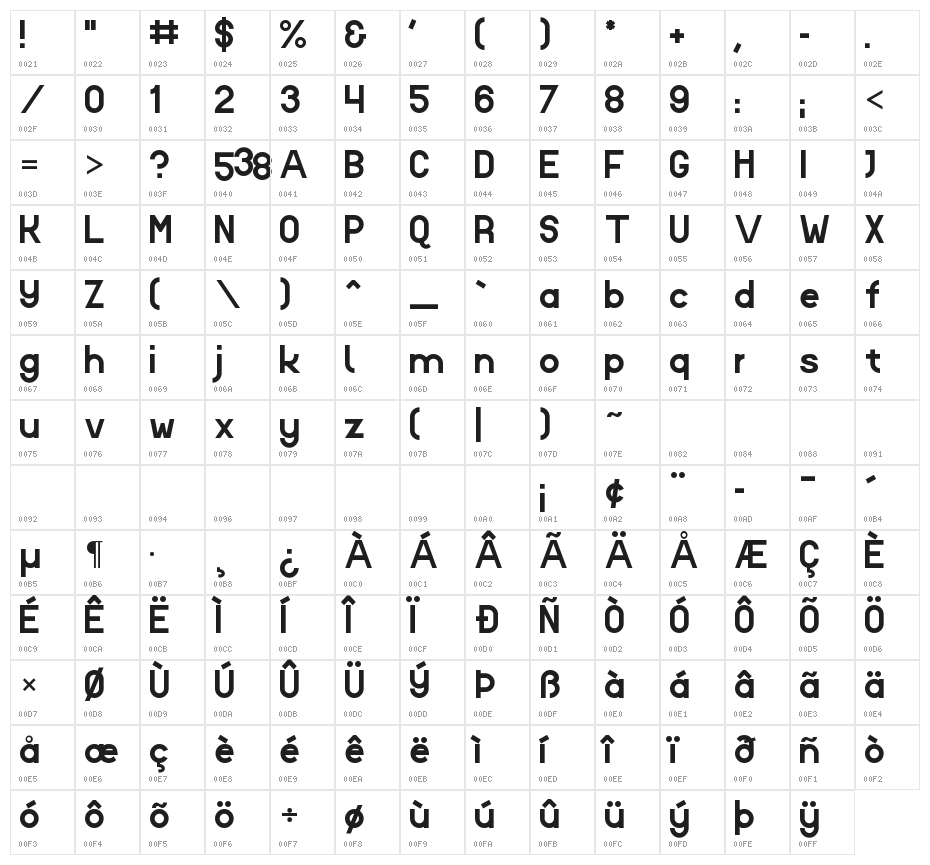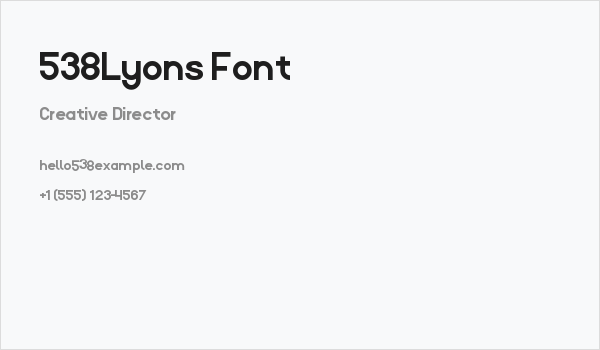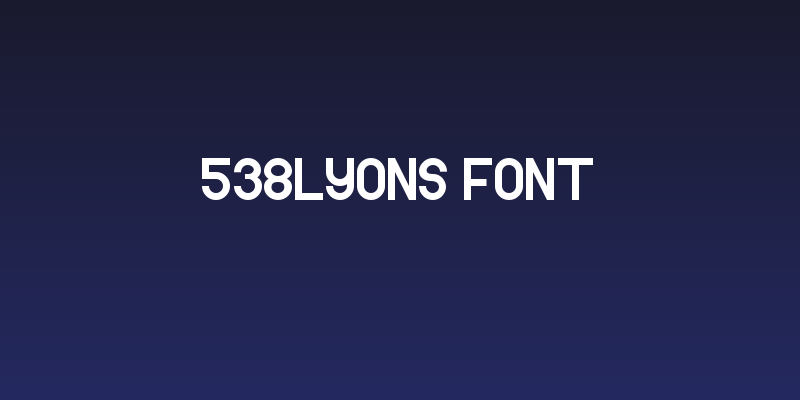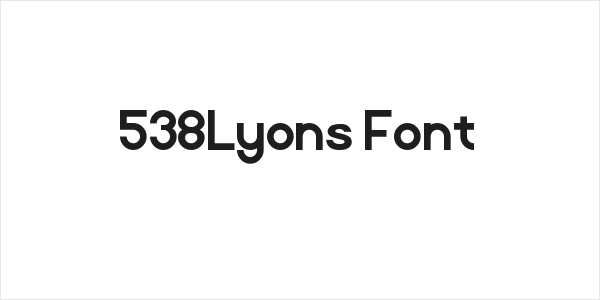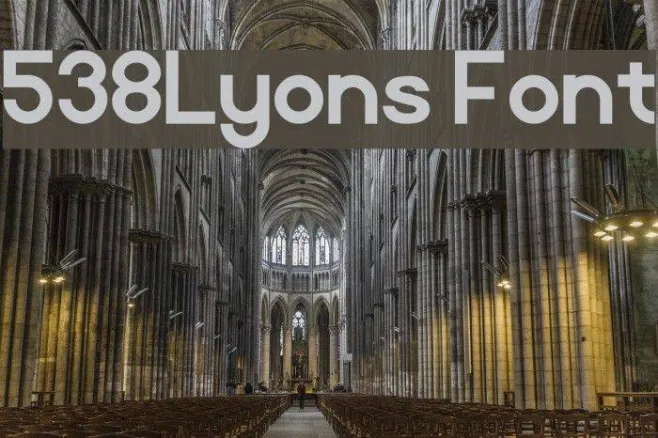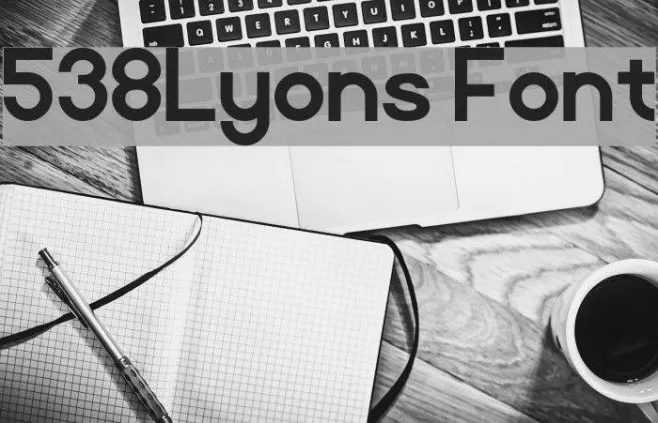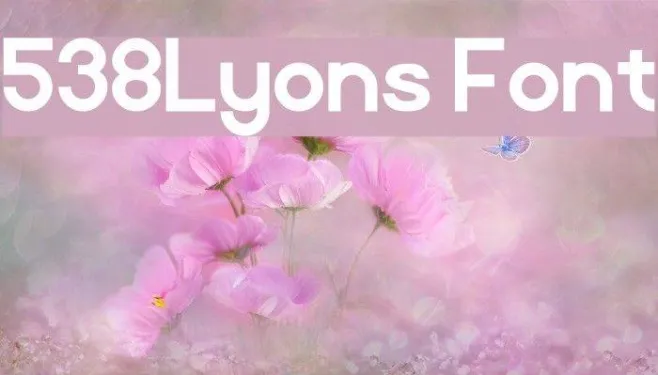
538Lyons Font Font
538Lyons Font Description
This font features a bold and modern sans-serif design with clean, geometric lines. The uppercase letters are uniform in height, providing a strong and cohesive appearance. The lowercase letters maintain a similar geometric style, with rounded edges that add a touch of softness to the overall look. Numbers are clear and legible, making them suitable for various applications. Special characters are well-defined, ensuring consistency across different uses. The font's simplicity and clarity make it versatile for both digital and print media.